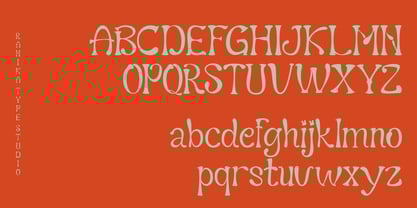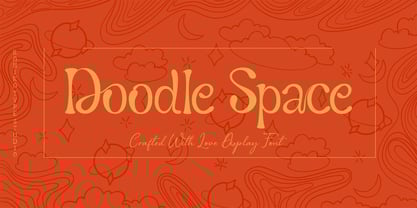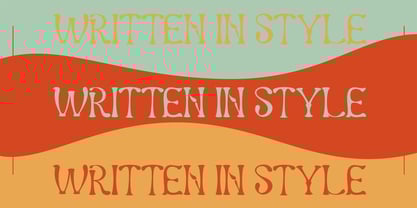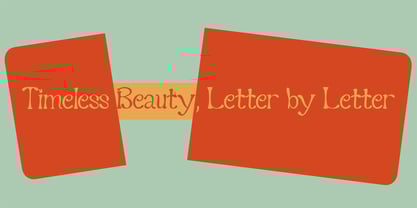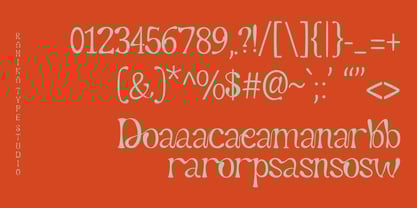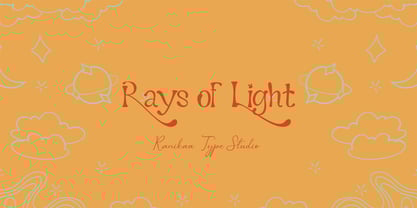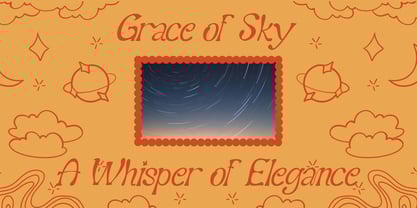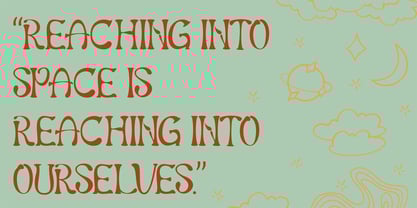
Doodle Space
by Ranikaa Type Studio
The Doodle Space Font Family was designed by Rani Septia and published by Ranikaa Type Studio. Doodle Space contains 3 styles and family package options. More about this family
Doodle Space is a playful and imaginative display font that captures the spirit of creativity, curiosity, and cosmic wonder. Inspired by hand-drawn sketches and the whimsical world of outer space, this font combines organic, doodle-style linework with quirky letterforms that radiate character and fun. Whether you're designing for children’s media, educational content, posters, games, or sci-fi themed branding, Doodle Space brings a joyful and approachable energy to any layout.
Each glyph is thoughtfully crafted to mimic the spontaneous feel of ink on paper—evoking a sense of exploration, experimentation, and storytelling. The irregular shapes and subtle imperfections give the font a warm, human touch, while its imaginative design elements—like starbursts, planets, or rocket-inspired curves—make every word feel like part of a cosmic journey. Use Doodle Space when you want your typography to break free from the ordinary and venture into the playful unknown. It's a perfect fit for headlines, logos, packaging, and any creative project that calls for bold personality and a sense of wonder. Whether you're designing for young dreamers or nostalgic adults, Doodle Space invites your audience to lift off and have fun.
Designers: Rani Septia
Foundry: Ranikaa Type Studio